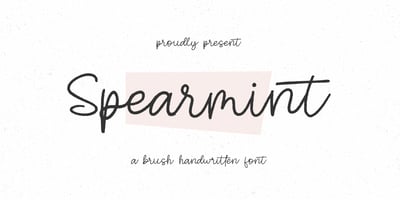
Spearmint
Spearmint font
Spearmint Font Family was designed by Suhery Anto, Odies Dwi Yudhistira and published by Qwrtype Foundry. Spearmint contains 1 styles and family package options. Introducing by Qwrtype FoundryProudly Present, Spearmint is a Brush Handwritten FontSpearmint is perfect for product packaging, branding project, megazine, social media, wedding, or just used to express words above the background.Spearmint also come with multilingual support.Thank you!